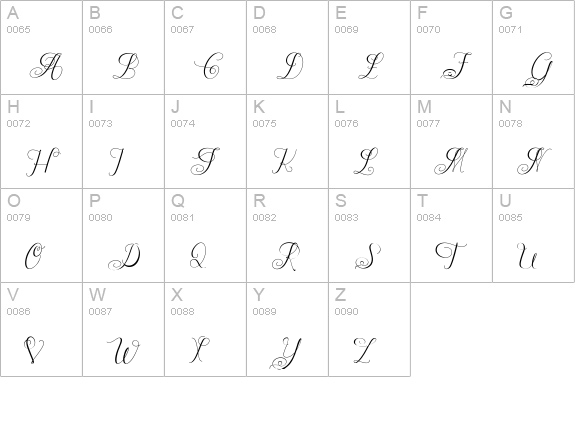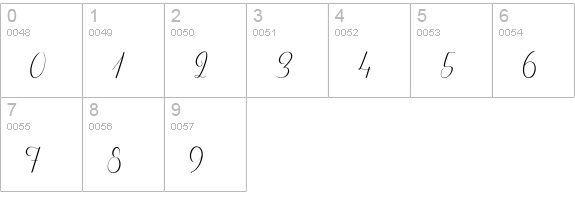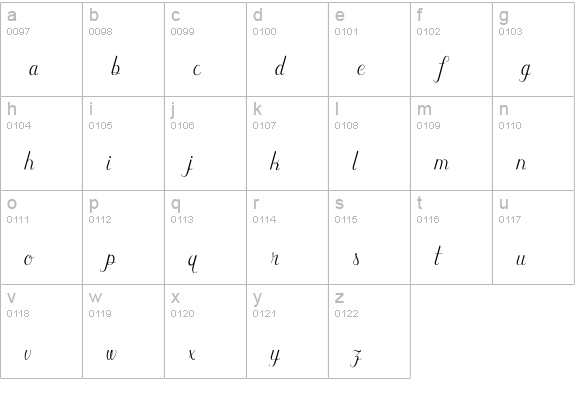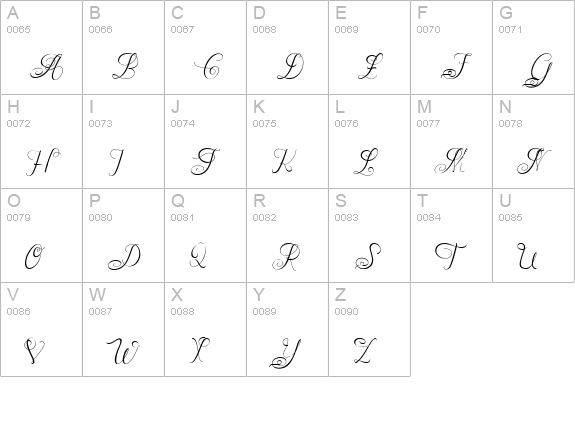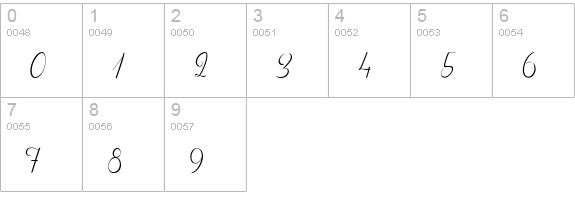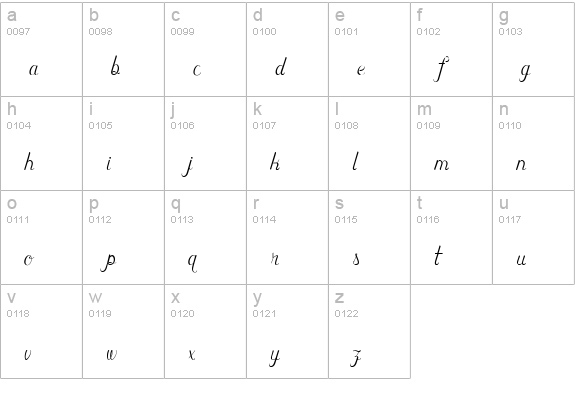
Chateaux des Olives is a free for personal use font in the Script > Calligraphy category. It has been downloaded 137 times and is available for Windows, Mac and Linux.
Chateaux des Olives font is a beautiful and elegant typeface that exudes sophistication and charm. With its sleek lines and graceful curves, this font is perfect for adding a touch of class to any design project. The Chateaux des Olives font is versatile and can be used for a wide range of purposes, from branding and logos to invitations and packaging. Its timeless appeal makes it suitable for both modern and classic designs, adding a touch of elegance to any visual composition. One of the best things about Chateaux des Olives font is that it is free! That's right, this stunning font is freely available to download at FontsMarket.com. This means that you can add this incredible typeface to your collection without any cost, making it an excellent option for designers on a budget or anyone looking to enhance their creative projects without breaking the bank. Whether you're working on a personal or commercial project, Chateaux des Olives font is sure to make a lasting impression. Its intricate details and refined aesthetics will elevate your designs to new heights, capturing the attention of viewers and leaving a lasting impact. So why wait? Download Chateaux des Olives font now from FontsMarket.com and unlock the potential of this remarkable typeface. With its seamless integration into various design applications, you can easily bring your creative visions to life and create captivating visuals that stand out from the crowd. Embrace the beauty and elegance of Chateaux des Olives font, and watch as your designs come to life with a touch of sophistication. Don't miss out on this incredible opportunity to enhance your design arsenal with a free and stunning typeface available at FontsMarket.com.